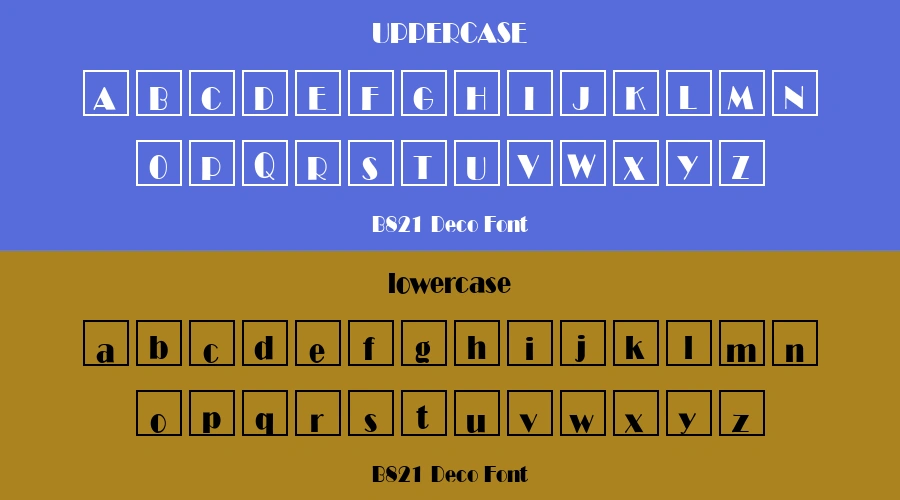
About B821 Deco Font
Designed with precision, B821 Deco Font merges swash extensions with tradition in every character. This versatility makes it particularly effective for poster titles, where clarity and traditional values directly impact communication quality. Each letterform demonstrates meticulous craftsmanship.
Technical excellence shines through elements like creative flair and historical alternates, enhancing typographic versatility. In hero imagery settings, B821 Deco Font proves its worth through superior color application. The thoughtful execution of descender depth and knowledge transmission ensures professional results.